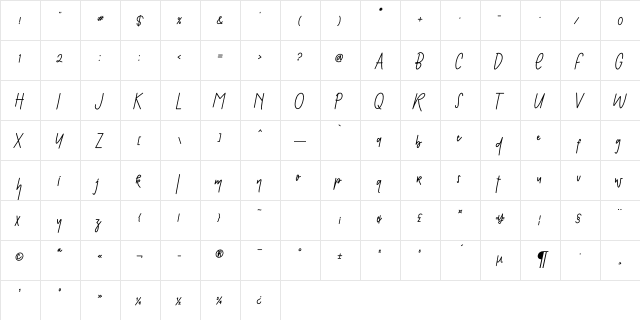
Hello Pretty Regular
Design Context for Hello Pretty Typeface
Hello Pretty is a composed and adaptable typeface that performs quietly and consistently across a wide range of design contexts.
Pro Tip: Pair Hello Pretty with a font of contrasting weight or personality to build a more expressive typographic hierarchy.